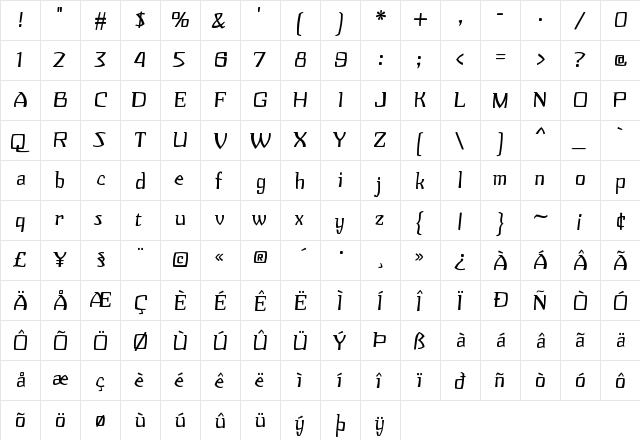
Zupiter Regular
| Foundry | Typodermic |
Design Context for Zupiter Typeface
Zupiter takes a measured approach to typography — its balanced proportions and neutral character make it a reliable workhorse for both digital and print work.